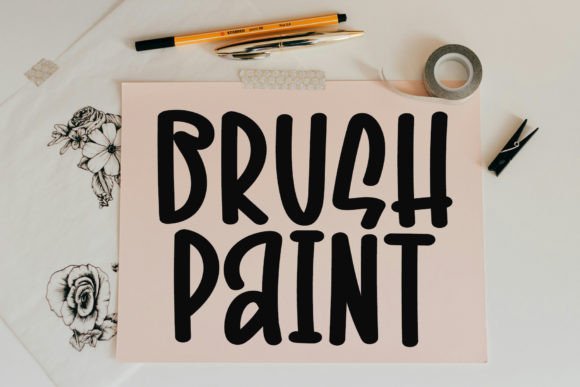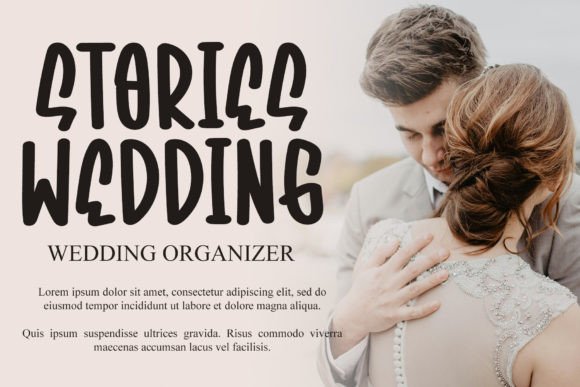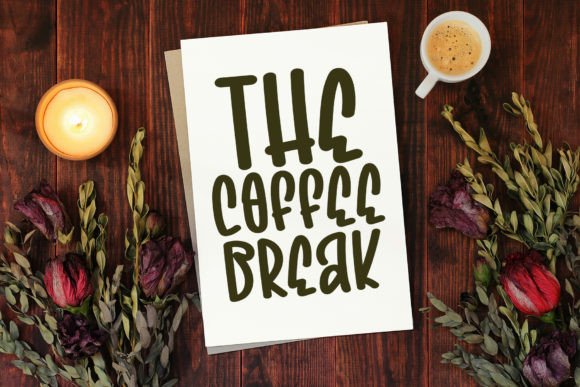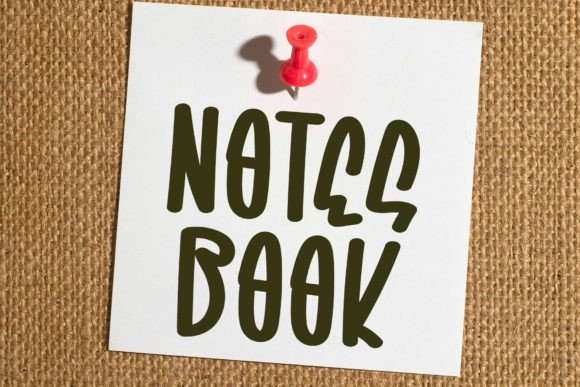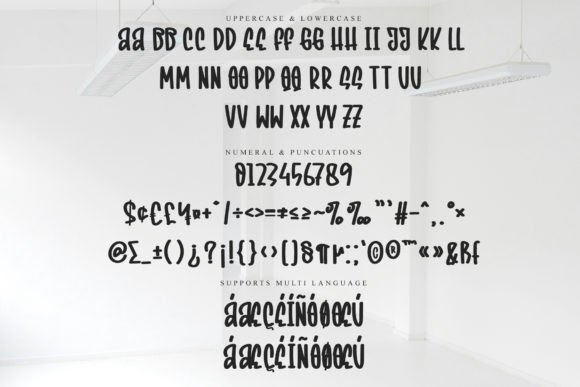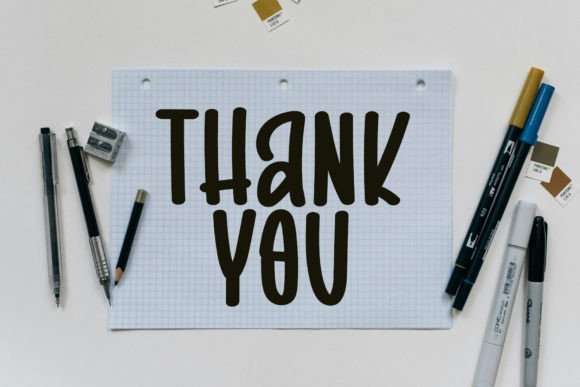
Unleash Your Creativity with Hardcore Font: A Timeless Display Font
Are you tired of using the same old fonts for your design projects? Look no further than the Hardcore Font, a stunning display font that is sure to elevate your designs to the next level. With its elegant touch and incredibly distinct style, Hardcore Font is the perfect choice for designers and crafters looking to add a touch of sophistication to their work.
What is Hardcore Font?
Hardcore Font is a beautifully crafted display font that boasts a unique and timeless style. Its elegant touch makes it perfect for a wide range of design projects, from logos and branding to posters, flyers, and more. Whether you’re a professional designer or a DIY crafter, Hardcore Font is sure to inspire your creativity and help you create spectacular designs.
Key Features of Hardcore Font
- Distinct and Timeless Style: Hardcore Font features an incredibly distinct and timeless style that is sure to make your designs stand out from the crowd.
- Elegant Touch: With its elegant touch, Hardcore Font is perfect for designers and crafters looking to add a touch of sophistication to their work.
- Versatile: Hardcore Font is a versatile font that can be used for a wide range of design projects, from logos and branding to posters, flyers, and more.
- Easy to Read: Despite its elegant and distinctive style, Hardcore Font is easy to read, making it perfect for use in both digital and print designs.
Why Choose Hardcore Font?
So why choose Hardcore Font for your design projects? Here are just a few reasons why this stunning display font is the perfect choice:
- Unique Style: Hardcore Font features a unique and distinctive style that is sure to make your designs stand out from the crowd.
- Elegance and Sophistication: With its elegant touch, Hardcore Font adds a touch of sophistication and elegance to any design project.
- Easy to Use: Hardcore Font is easy to use and can be easily integrated into your design workflow.
- High-Quality: Hardcore Font is a high-quality font that is designed to deliver exceptional results in any design project.
How to Use Hardcore Font
Using Hardcore Font in your design projects is easy. Here are just a few tips to get you started:
- Logos and Branding: Use Hardcore Font to create stunning logos and branding materials that are sure to make your business stand out.
- Posters and Flyers: Add a touch of elegance and sophistication to your posters and flyers with Hardcore Font.
- Digital Designs: Use Hardcore Font in your digital designs, such as social media graphics, website headers, and more.
- Print Designs: Hardcore Font is also perfect for use in print designs, such as brochures, business cards, and more.
In conclusion, Hardcore Font is a stunning display font that is sure to elevate your designs to the next level. With its elegant touch and incredibly distinct style, Hardcore Font is the perfect choice for designers and crafters looking to add a touch of sophistication to their work. Whether you’re creating logos and branding materials, posters and flyers, or digital and print designs, Hardcore Font is the perfect choice. So why wait? Download Hardcore Font today and start creating spectacular designs!
Hardcore Font: The Perfect Choice for Designers and Crafters
Hardcore Font is a must-have for any designer or crafter looking to add a touch of elegance and sophistication to their work. With its unique and timeless style, Hardcore Font is sure to inspire your creativity and help you create stunning designs that are sure to impress. So why choose Hardcore Font? Here are just a few reasons why this stunning display font is the perfect choice for designers and crafters:
- Perfect for Design Projects: Hardcore Font is perfect for a wide range of design projects, from logos and branding to posters, flyers, and more.
- Elegant and Sophisticated: With its elegant touch, Hardcore Font adds a touch of sophistication and elegance to any design project.
- Unique and Timeless Style: Hardcore Font features a unique and timeless style that is sure to make your designs stand out from the crowd.
- High-Quality: Hardcore Font is a high-quality font that is designed to deliver exceptional results in any design project.